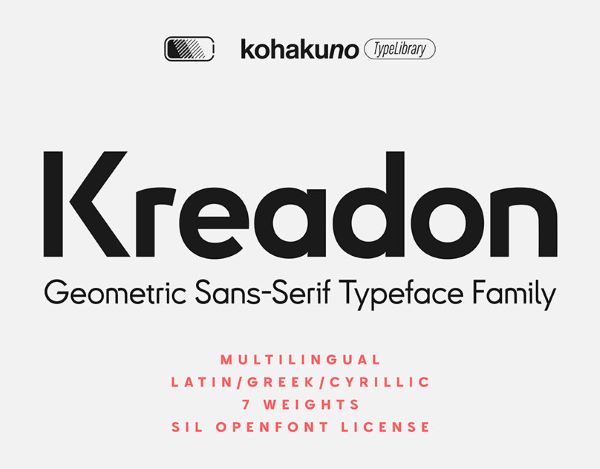
Kreadon Font
Kreadon by Reiya Watanabe is a geometric sans-serif typeface released as an early access project — a term that signals not incompleteness, but an invitation to engage with the design at a formative stage with the understanding that updates will follow. Released under the SIL Open Font Licence, which means it is fully free for personal and commercial use with no restrictions, and can even be modified and redistributed under the same terms.